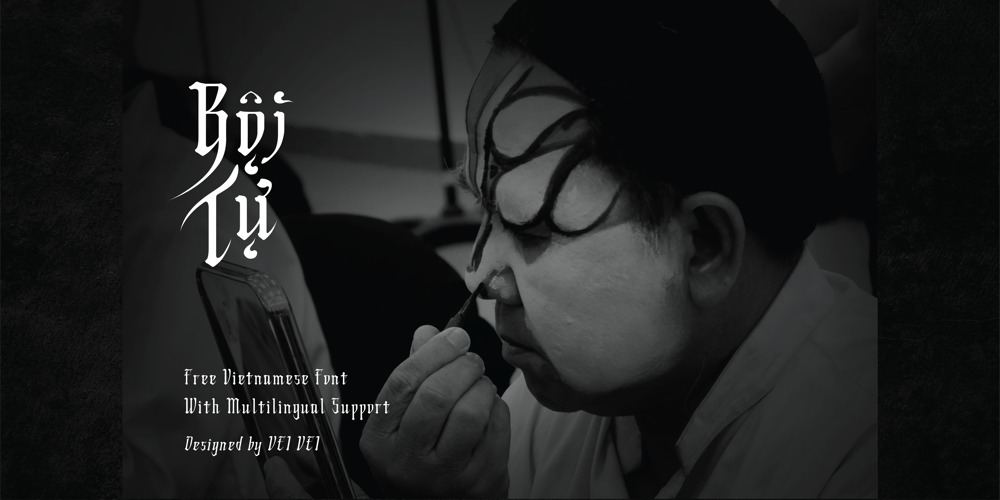
BoiTu Font Family was designed by Vei Vei and published by Vei Vei. BoiTu contains 2 styles and family package options. BoiTu is a typeface in the BoiTu project designed by Vei Vei. BoiTu has a strong contrast between bold bars and long sharp hook strokes inspired by pheasant feathers on the hat in Hat Boi costume. “Tuong or Hat Boi is a form of Vietnamese classic opera, combining various elements of arts such as stage, music, fine art, literature, dancing, and martial arts. Older Tuong plays are usually about historical events or tales. Allegories, melodramas, soliloquies, modes of expression, forms of performance, repartee singing and recitative conventions, etc., are constantly updated and elevated, and are quintessential elements in the art of Tuong.” Boi Tu is a classic design to bring traditional art and culture closer to everyone. Boi Tu is a Vietnamese font that supports multiple languages.